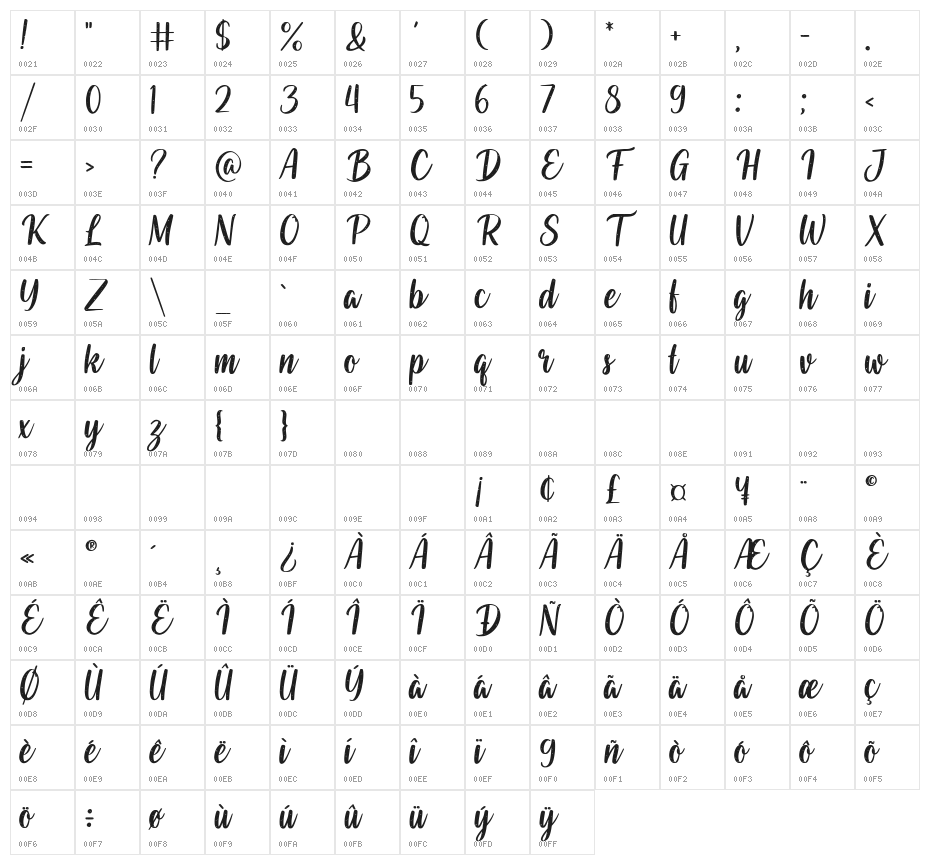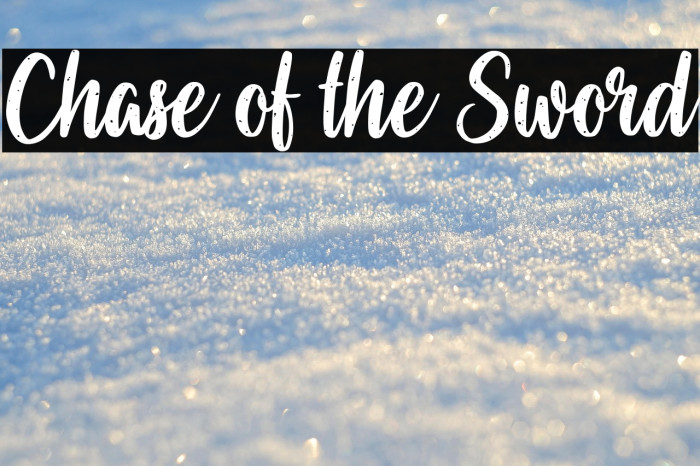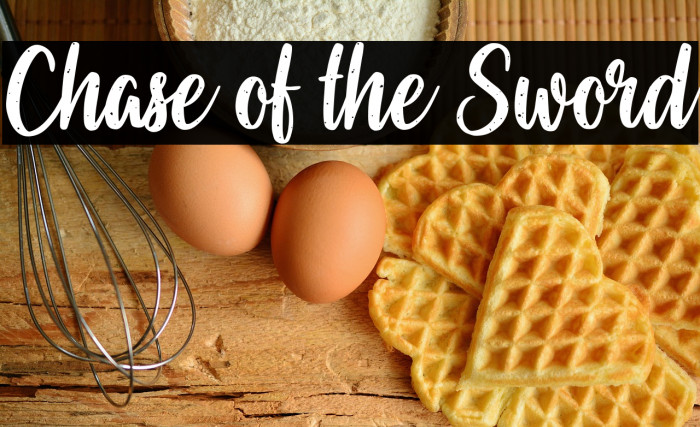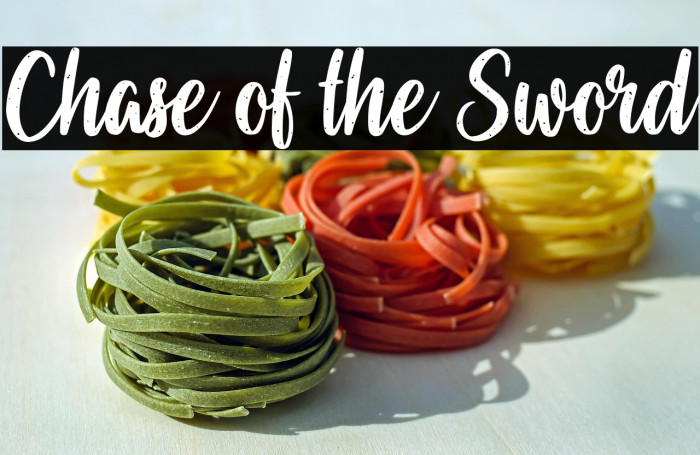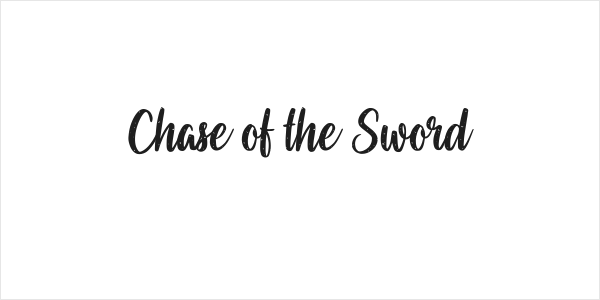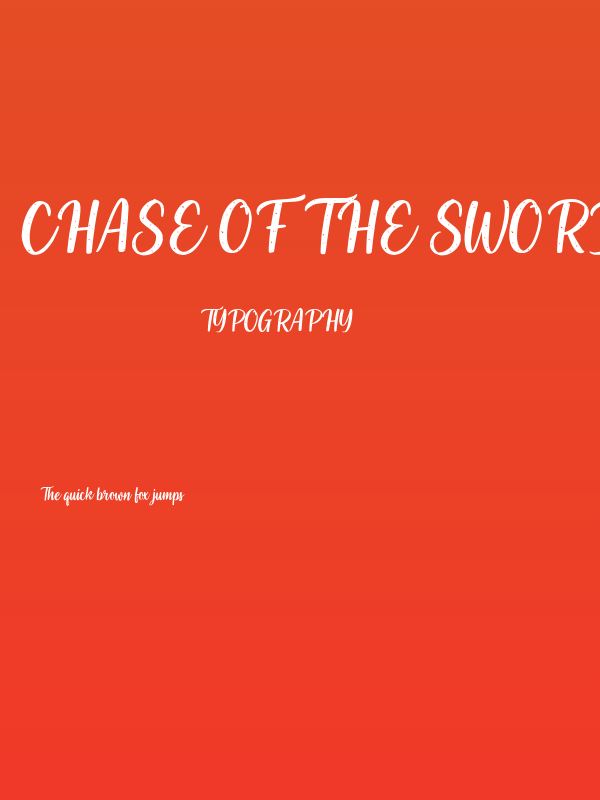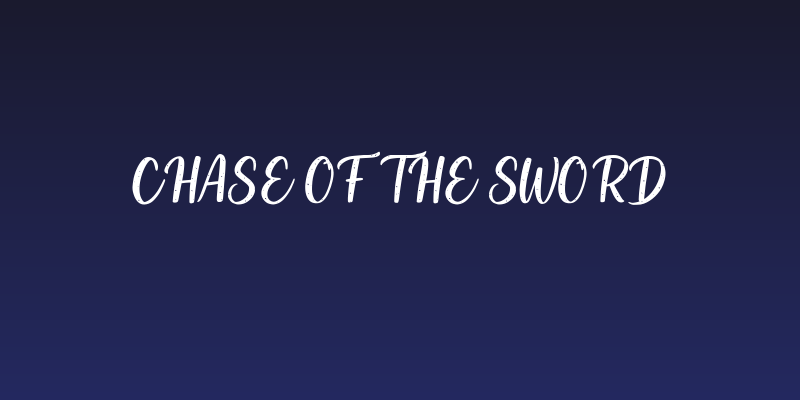
Chase of the Sword Font
Chase of the Sword Description
This font features a bold, script style with a hand-drawn appearance, characterized by its flowing, cursive letters. The strokes are thick and consistent, giving it a strong presence. The letters are slightly slanted, adding a dynamic and lively feel. The texture includes subtle imperfections, which enhance its handcrafted look. This font is versatile, suitable for various creative projects that require a personal touch. Its boldness ensures readability while maintaining an artistic flair.
Use CaseLogos, Headlines, Invitations
Proposed ProjectsIdeal for branding, invitations, greeting cards, and social media graphics.